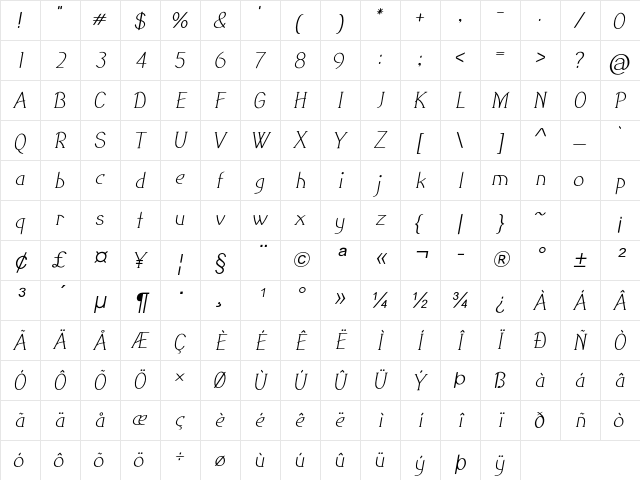
Tiptoe Regular
Tiptoe Family
Design Context for Tiptoe
Tiptoe is a composed and adaptable typeface that performs quietly and consistently across a wide range of design contexts.